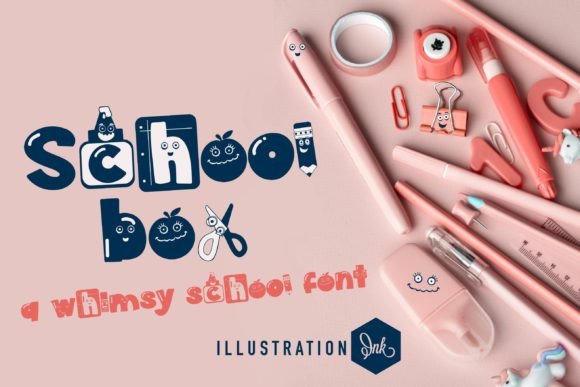
**Unleash the Power of Education with School Box Font: Your Gateway to Educational Excellence**
Prepare to ignite a love for learning with School Box Font, a captivating display font that's set to revolutionize your educational journey. Designed by the imaginative minds at Illustration Ink, this font is not just a collection of characters; it's an artistic masterpiece that embodies the essence of curiosity, creativity, and knowledge.
Embark on a captivating adventure with this playful and charming font, meticulously crafted to inspire and engage young minds. Each letter is a delightful canvas adorned with school supplies and adorable faces, transforming ordinary text into an extraordinary visual feast. Whether you're creating educational materials, designing classroom displays, or simply nurturing a love for reading, School Box Font will bring your words to life with an unforgettable charm.
Step into a world where learning becomes an adventure, where imagination takes flight, and where every word dances with playful delight. School Box Font is not just another font; it's a catalyst for creativity, a companion for curious minds, and a key to unlocking the wonders of education.